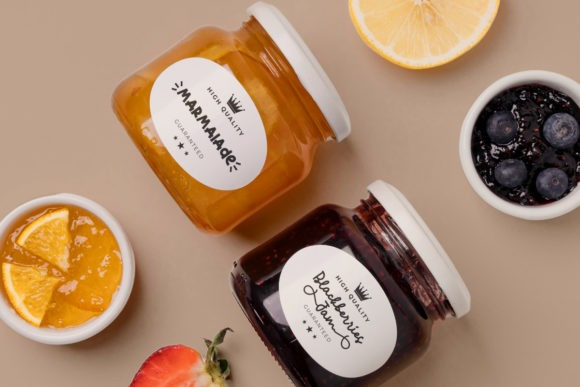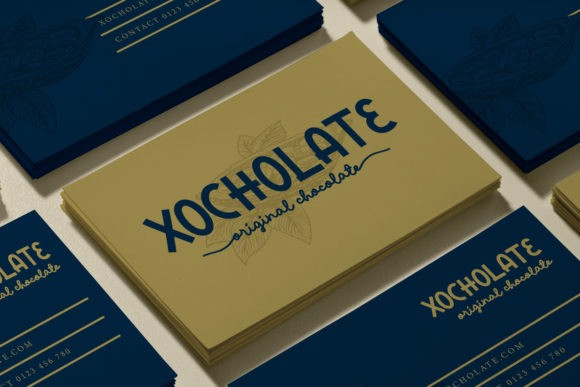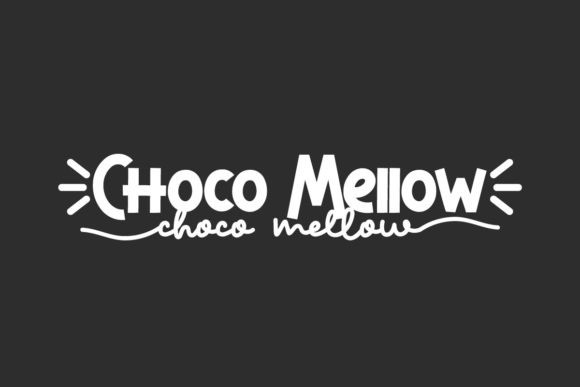
Choco Mellow Font
Choco Mellow Font is a playful font duo that complements each other in two different styles : cute sans serif display and sweet handwriting script. It will be suitable for any industries such as, advertisement, animation, bakery, cake, cooking, craft, groceries, homeware, publishing, snack brand, and more!
Choco Mellow Font has includes full set of Uppercase and Lowercase Basic Character, Numerals, Punctuation, Symbol, Ligature, and also Swoosh to give it perfection you’ll love and make it great for many projects such as, brand logo, business card, labels, poster, product packaging, quote, stationery, sticker, title, website, etc.